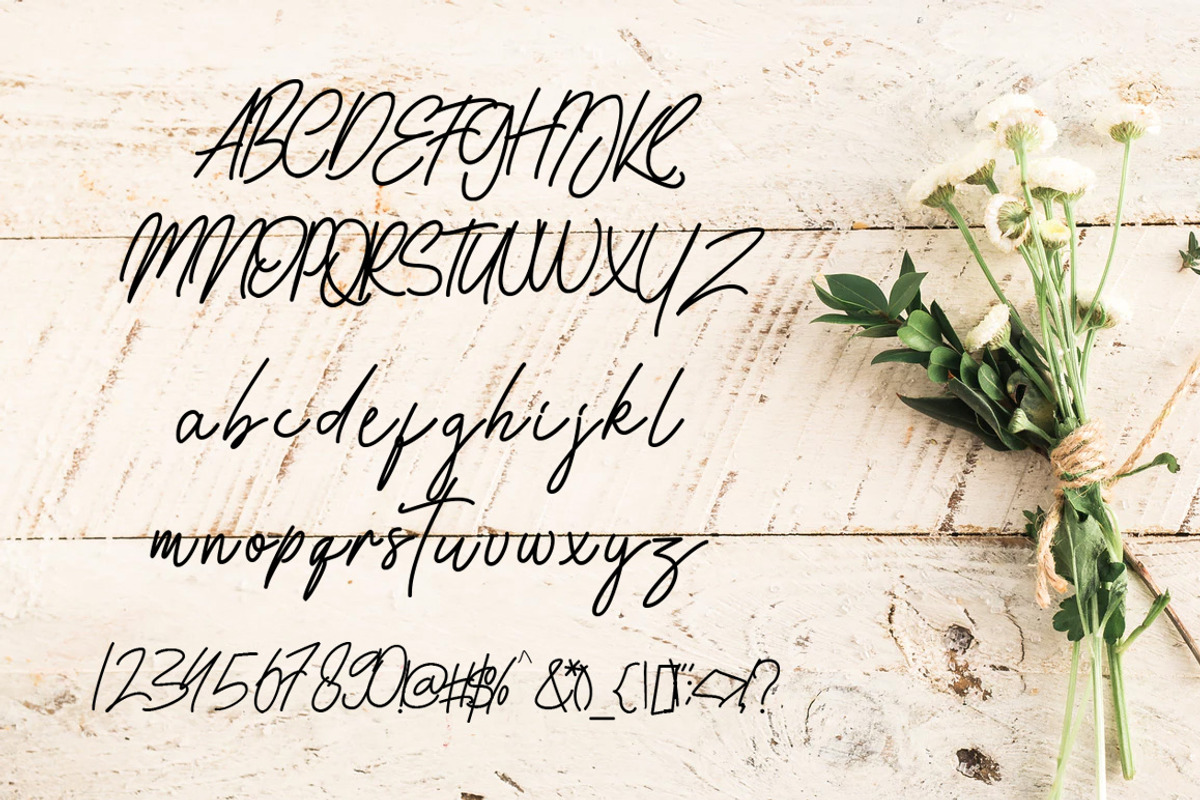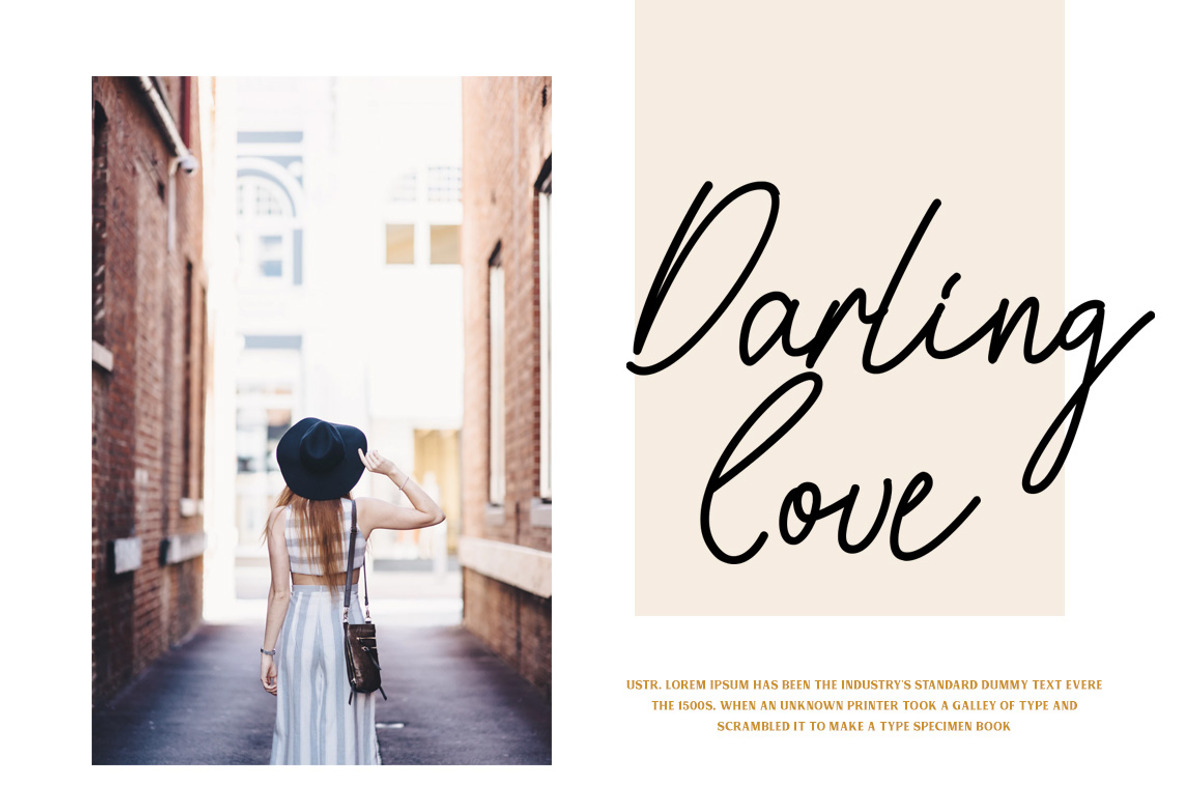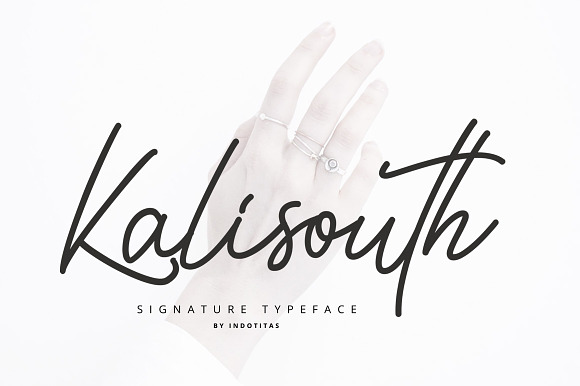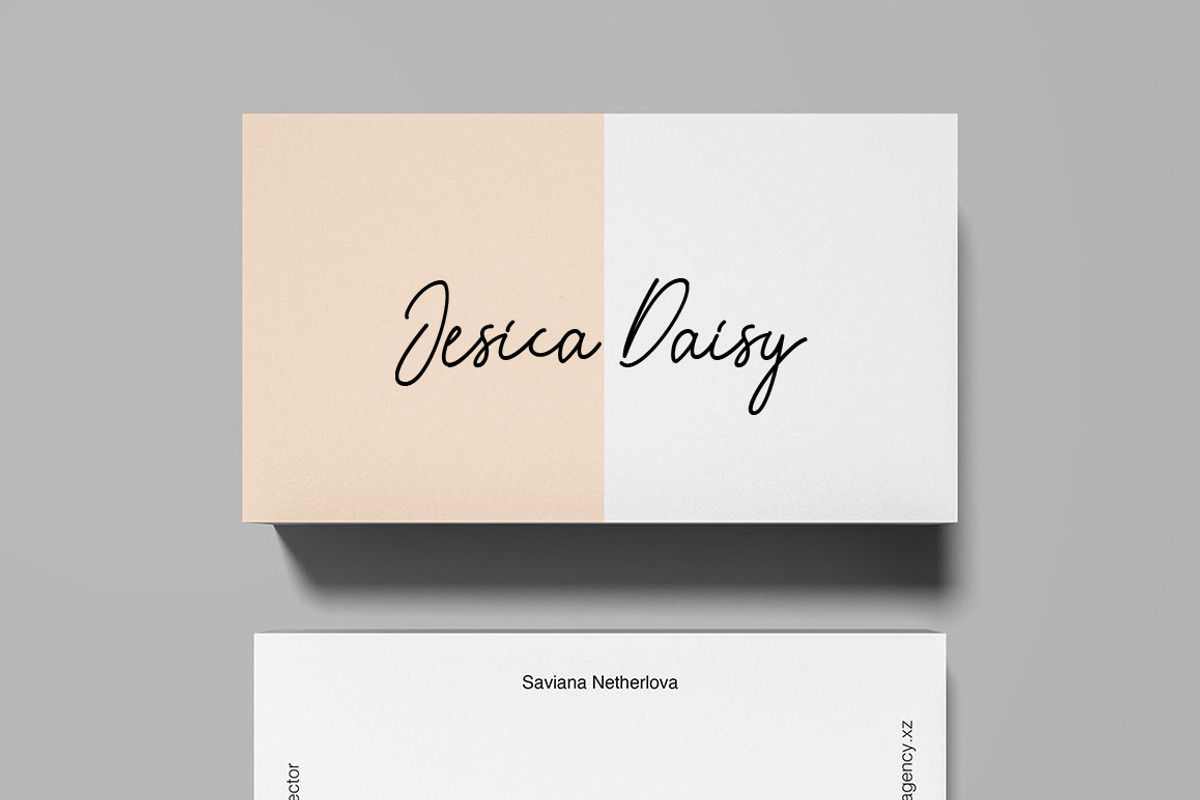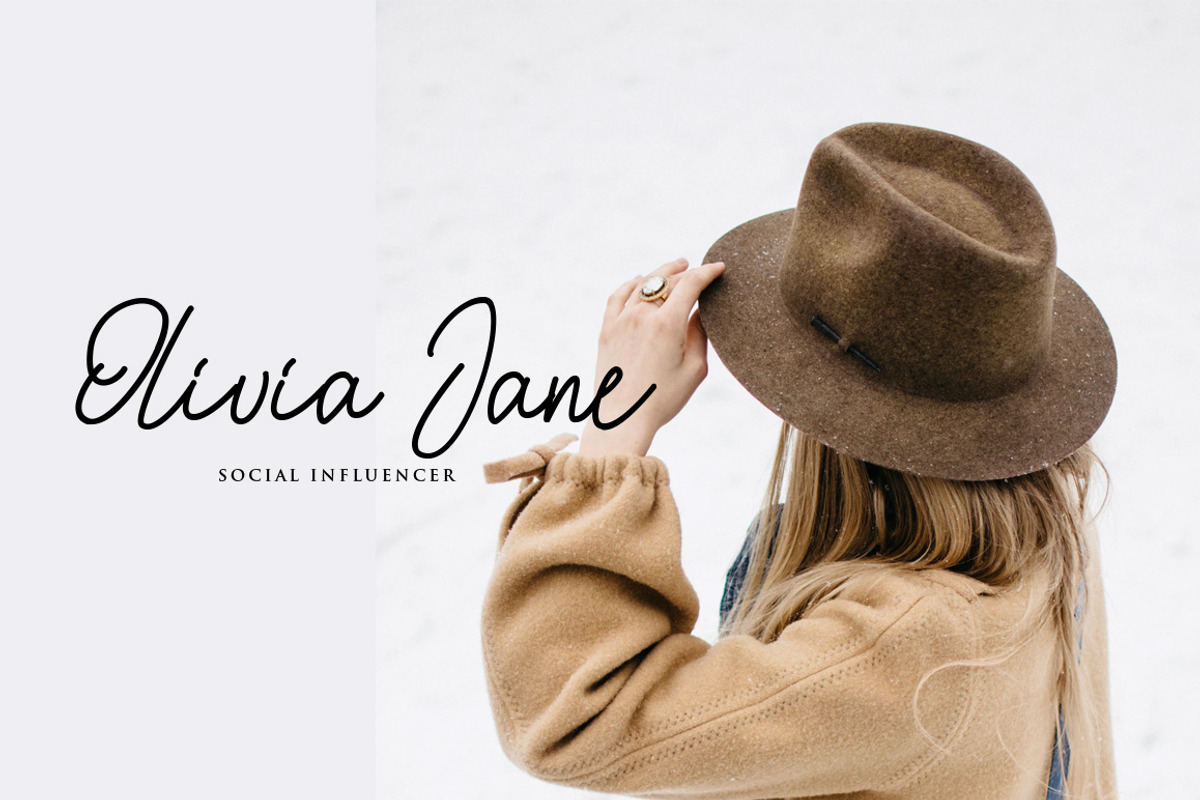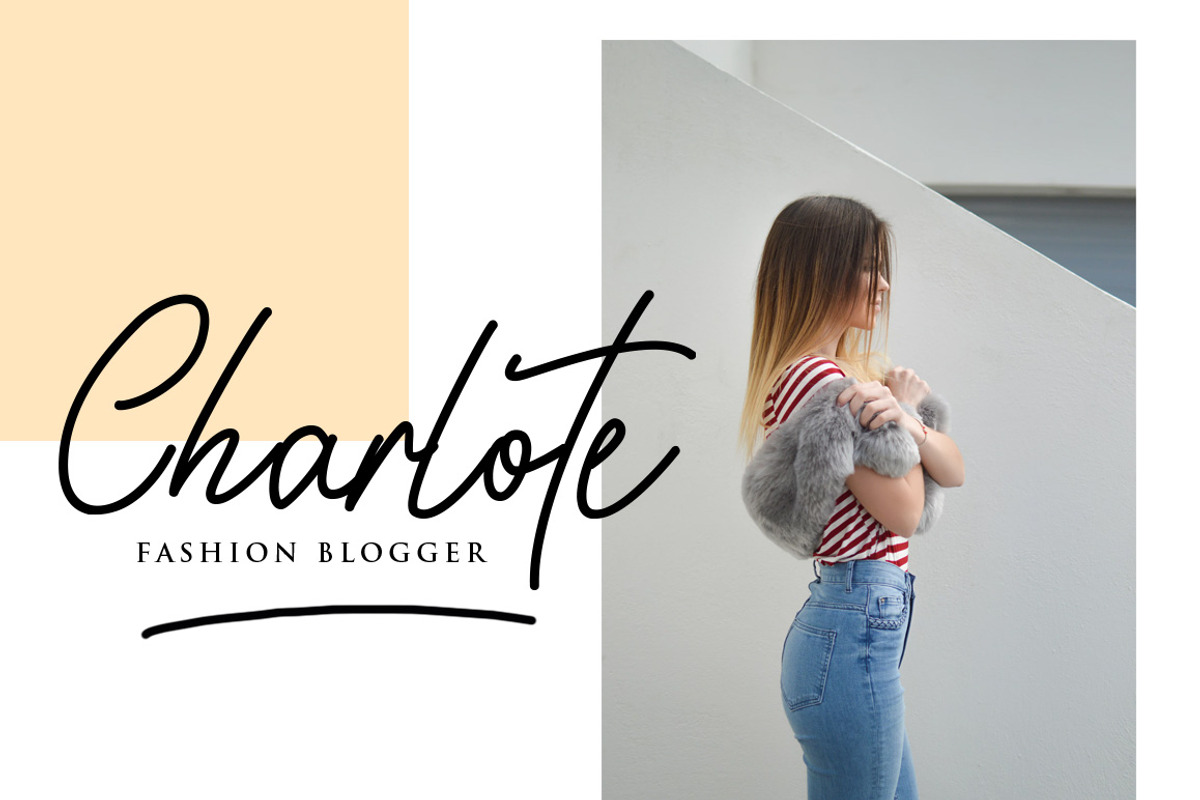
Kalisouth Signature Font
Introducing to Kalisouth Signature Font
Kalisouth is signature font script, ideal for use in projects that need an organic and natural style. This font is great for logo, logotype, branding,wedding, fashion, label, book cover, t-shirt, instagram post, and other, and can add an elegant and classy look to your work.
Basic Latin A-Z and a-z, Numbers, & Symbols
- Basic Latin A-Z and a-z, Numbers, & Symbols
Why Kalisouth Signature Font is worth a look
Kalisouth Signature Font by Indotitas fits naturally into Branding, posters, packaging, typography.